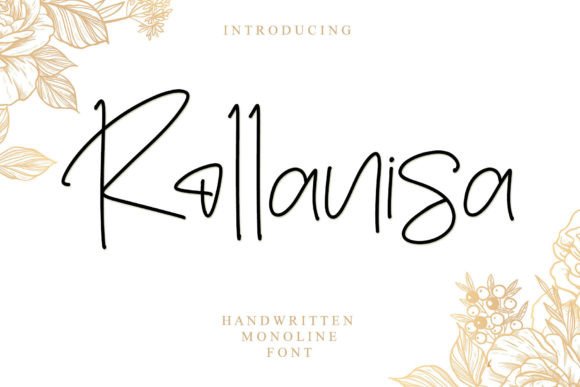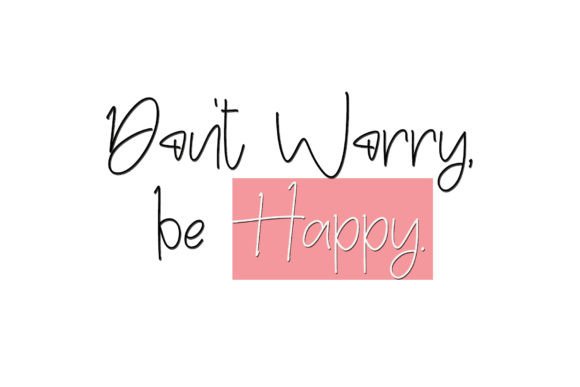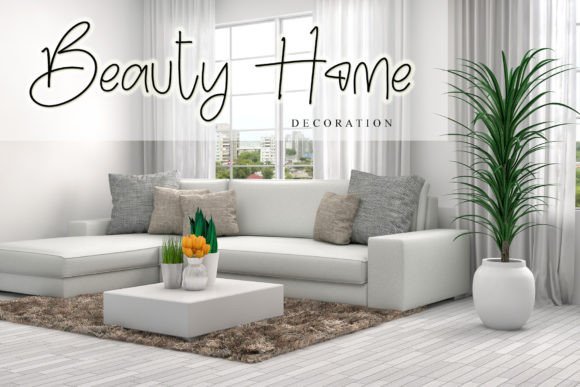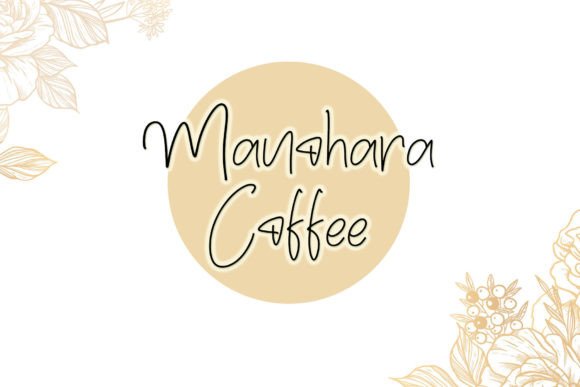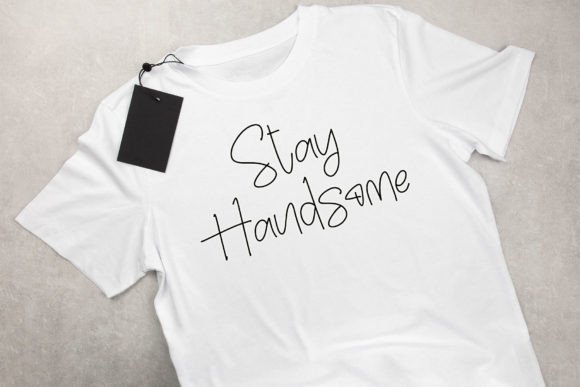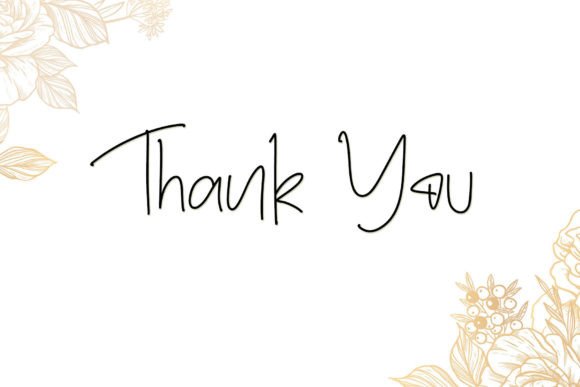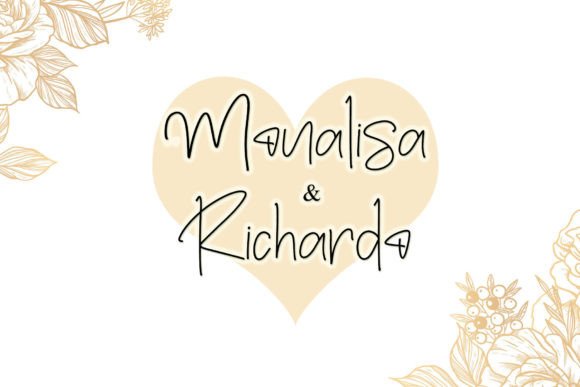
Rollanisa Font
About Rollanisa Font
Introducing “Rollanisa” – Your Delightfully Simple Thin-Handwritten Font for Diverse Design Projects!
“Rollanisa” is not just a font; it’s a beautifully crafted thin-lettered handwritten typeface designed to enhance a wide range of design projects. Whether you’re working on creative branding initiatives, crafting eye-catching posters, designing stylish apparel, curating social media content, experimenting with website design, or any other creative endeavor, “Rollanisa” is the perfect choice to infuse a touch of simplicity, elegance, and friendliness.
With “Rollanisa,” you gain access to a font that seamlessly combines the charm of thin handwritten lettering with the versatility to elevate various design contexts. Its elegant, thin letters bring a sense of sophistication and a dash of playfulness to your text, ensuring your content stands out beautifully across different mediums.
Imagine using “Rollanisa” to create minimalist and stylish branding materials that convey a sense of elegance, crafting captivating posters that leave a lasting impact, fashioning trendy apparel designs that resonate with simplicity, or enhancing your online presence with a font that adds a touch of friendliness to your website’s typography. This font’s adaptability and thin-lettered charm make it an ideal choice for a diverse array of design projects.
Whether you’re a seasoned designer seeking a versatile thin-handwritten font or someone new to design looking to add a dash of elegance and playfulness to your projects, “Rollanisa” is your ultimate typeface.